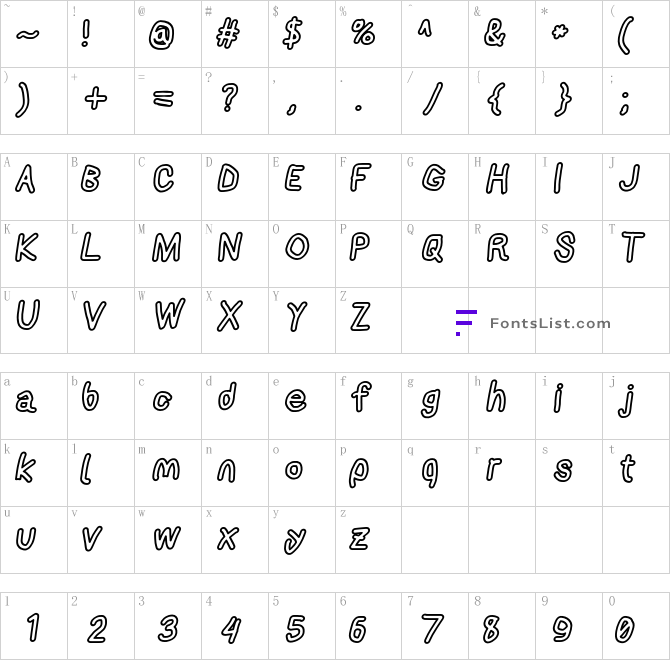
- Font Name:AppleStorm
AppleStorm-Extra-Bold-Outline-Italic.otf is a very beautiful artistic font, AppleStorm-Extra-Bold-Outline-Italic.otf is widely used in the design and printing of various books and pictures,AppleStorm-Extra-Bold-Outline-Italic.otf has a strong visual impact,AppleStorm-Extra-Bold-Outline-Italic.otf is a commonly used font in newspapers, magazines and books, and is used in posters, e-commerce Poster design, store design, logo design, font design and other fields.AppleStorm-Extra-Bold-Outline-Italic.